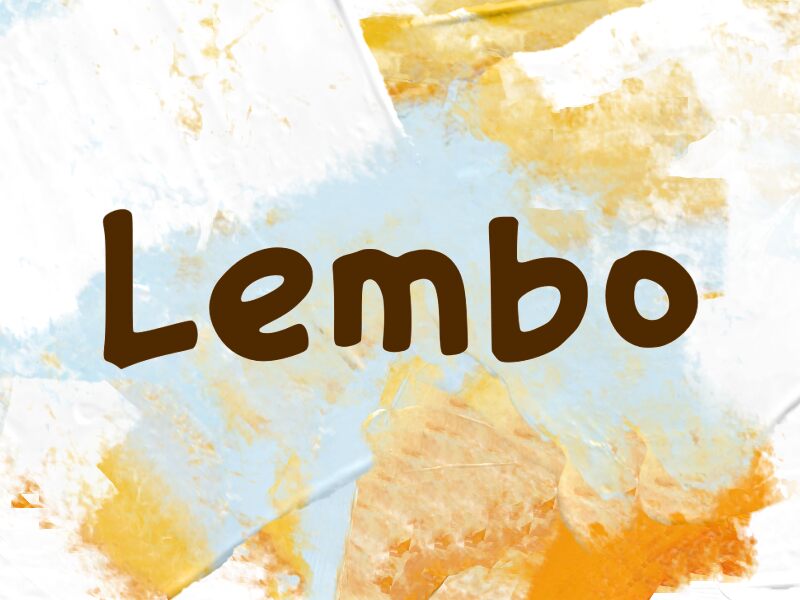
L Lembo font by wep is a free font sporting a cartoon style. This charming font features informal, inviting, and friendly characteristics that make up its approachable and casual nature. Character shapes are rounded and edges are curved, which can easily be associated with playfulness, positivity, and fun. Every design made using this font will attract notice and engage self-expression through its characters.
Developing a comic book, posters, invitations, book covers, or even a magazine will be a remarkable journey with this font. Its modern and contemporary look is perfect for advertising, branding, social media theme design, logo creation, web design, and films. Designers can opt for what best projects their manuscripts.
Lembo is a stylish and modern free font that offers a unique touch to any design project. This versatile typeface is ideal for a range of applications, from branding to web design, allowing you to create visually appealing text with ease.
With a streamlined aesthetic, Lembo provides clarity and elegance, making it a perfect choice for those looking to elevate their design work. Whether you're crafting a stunning poster, designing a logo, or enhancing a website, Lembo is an excellent addition to your font collection.